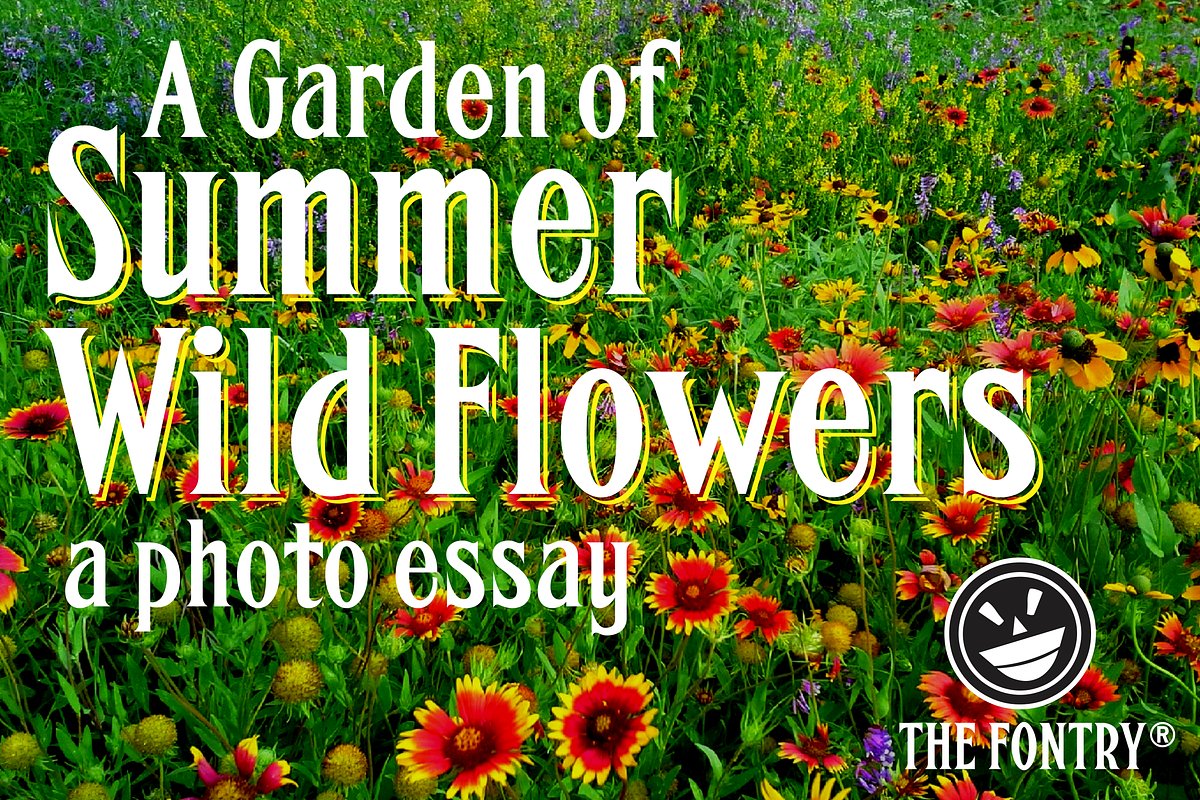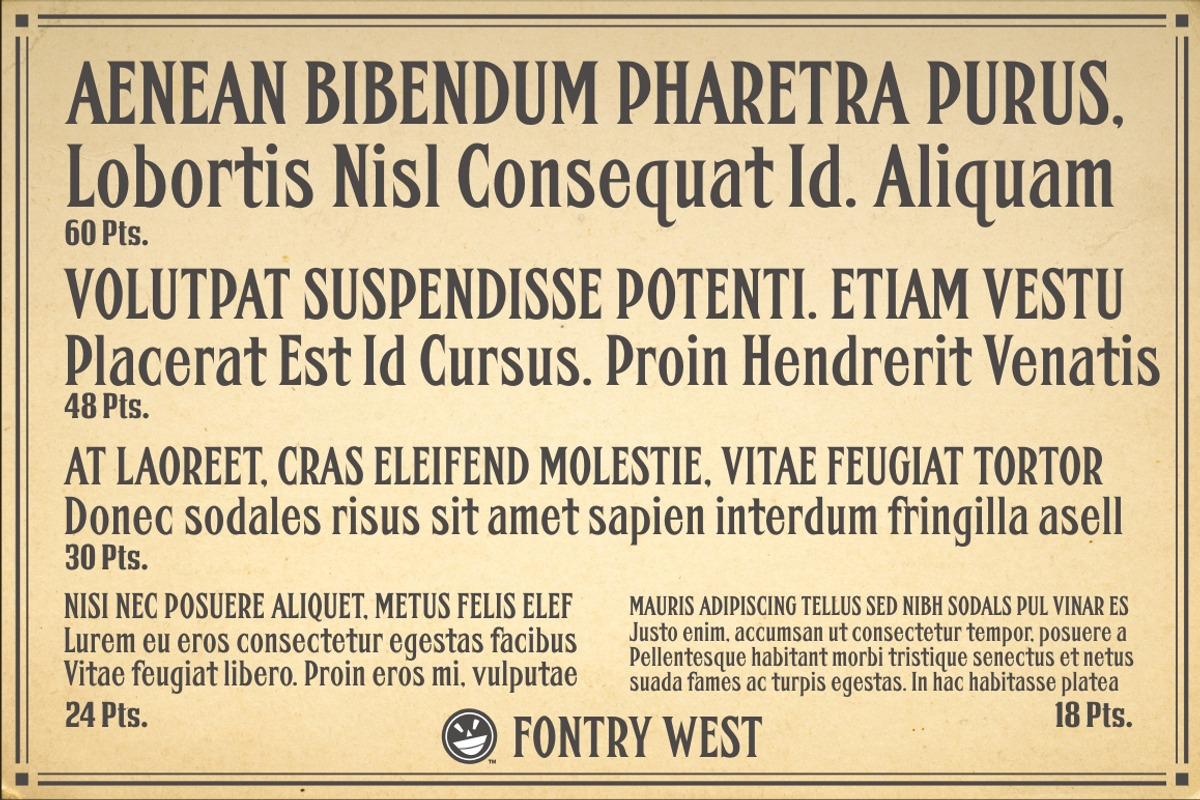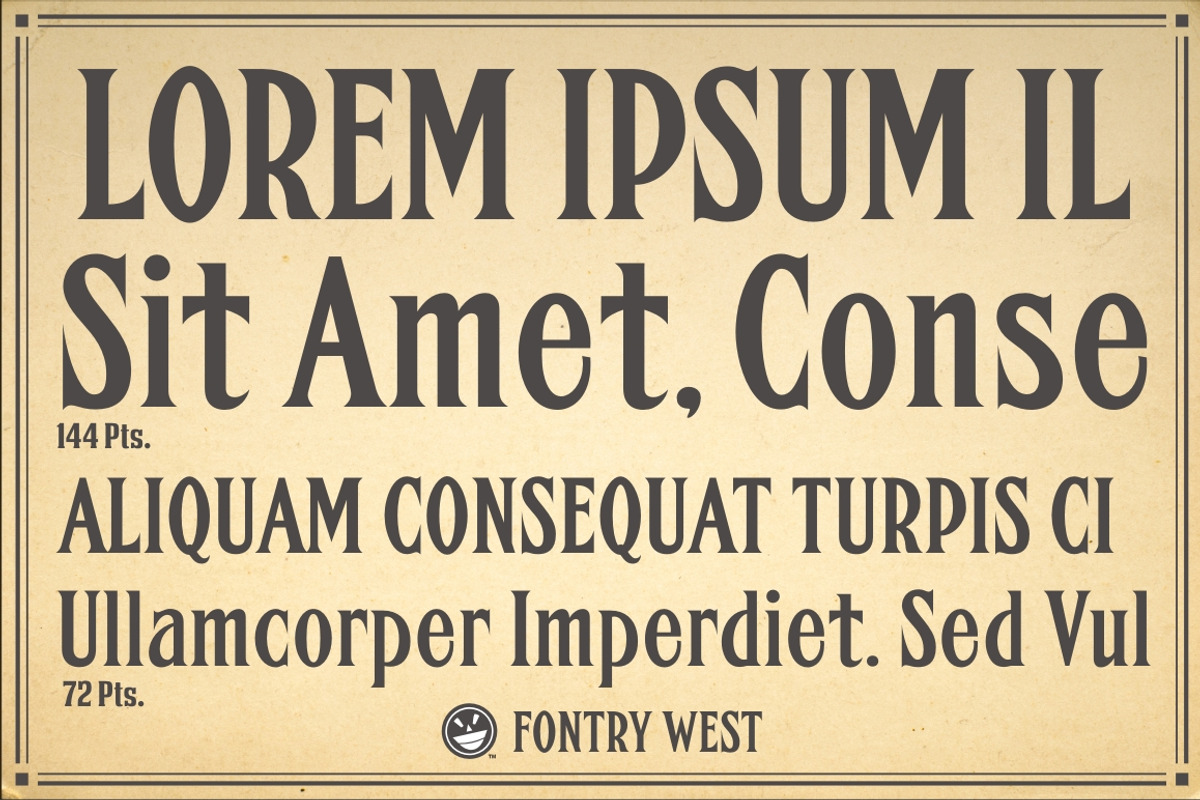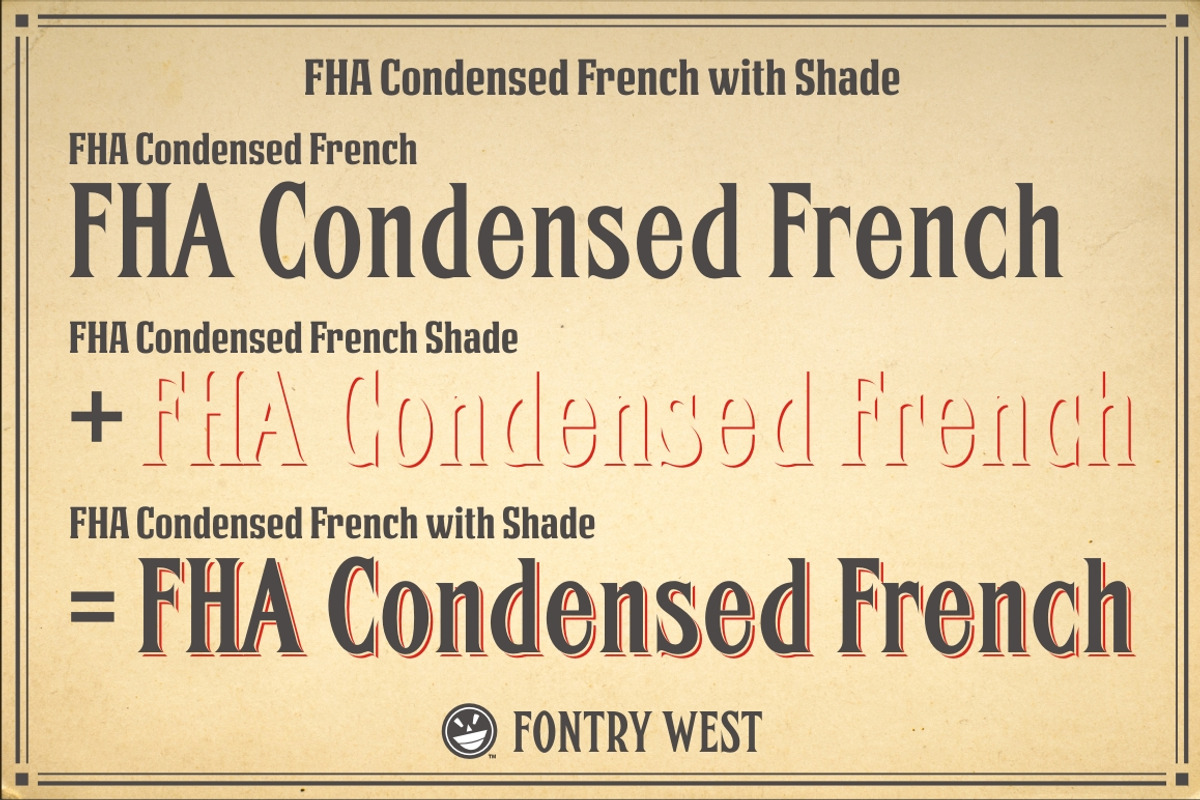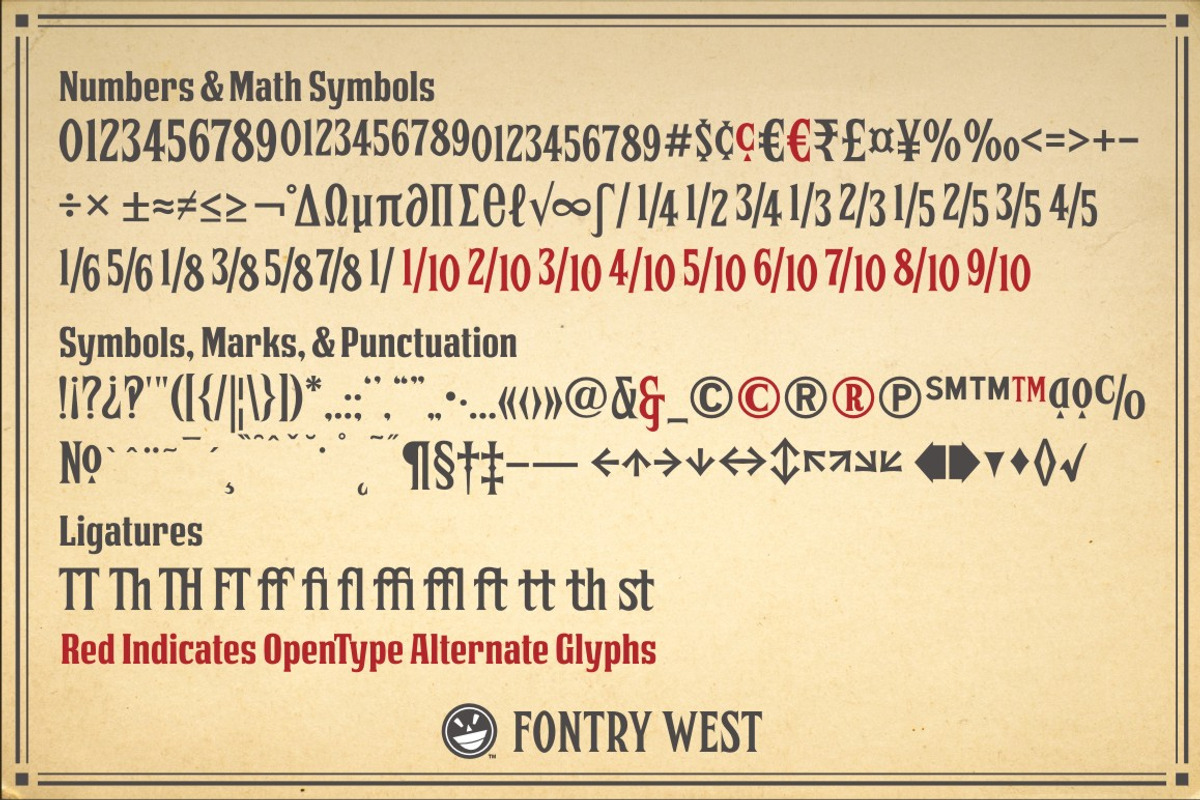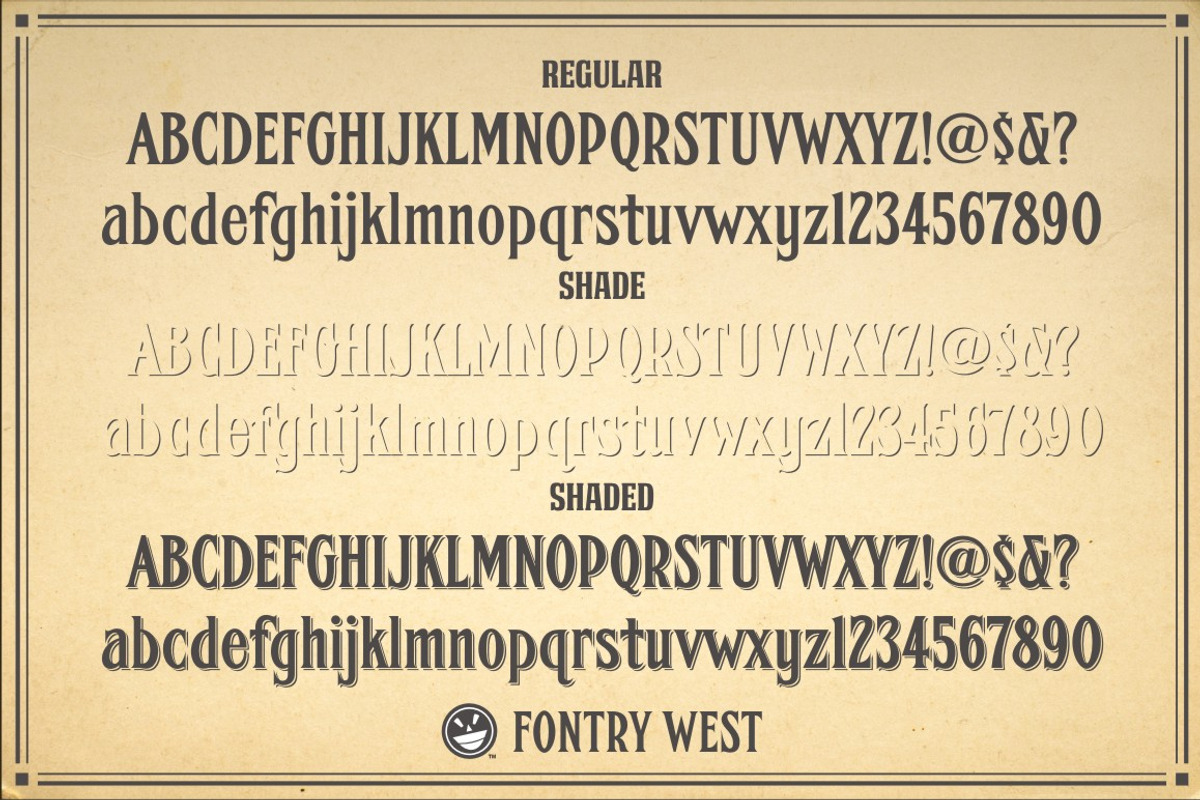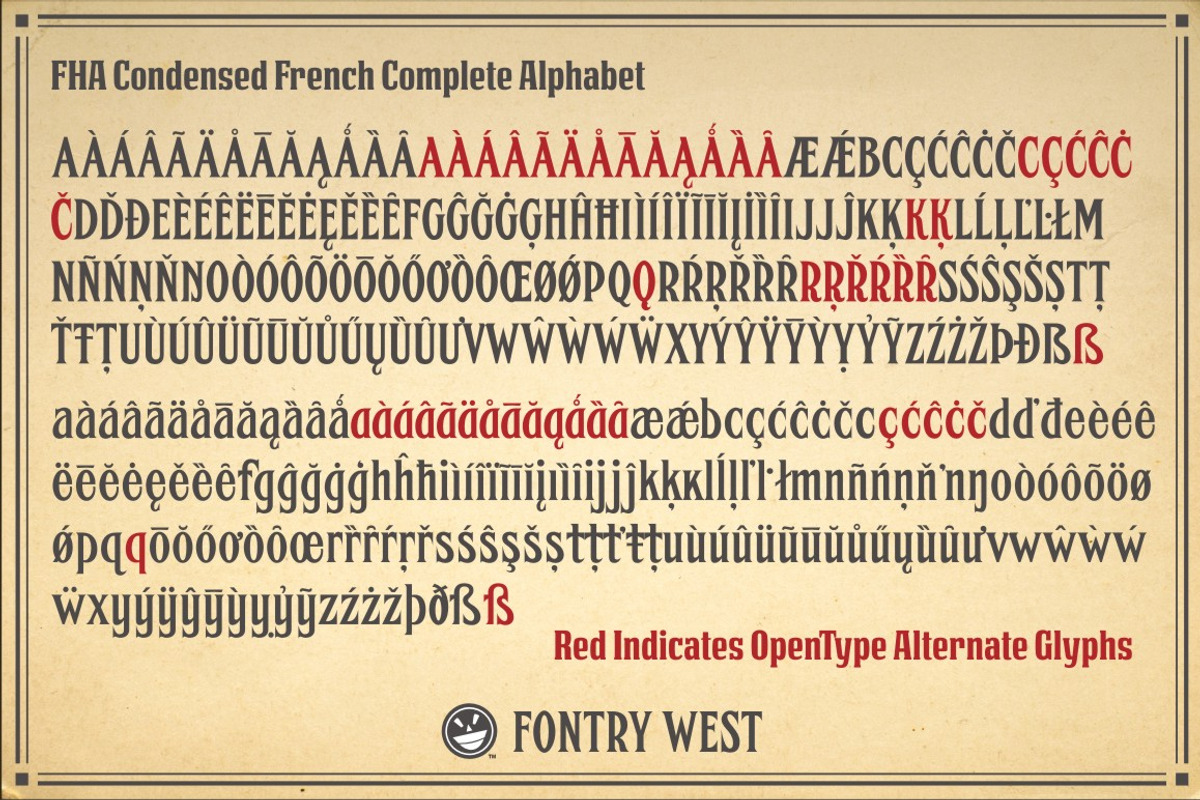
FHA Condensed French: A Vintage Font
One could speculate that FHA Condensed French probably started life as wood type for displays, headlines and posters. The exaggerated sharp serifs and condensed forms were not uncommon for that period. At some point, sign painters picked up Condensed French added their own character. At the end of the nineteenth century, Frank H. Atkinson included Condensed French in his samples of lettering for his book, ”Sign Painting, A Complete Manual.” This book became one of the definitive guides for signwriting and hand lettering. In 1999, Mike Adkins digitized Condensed to add to our Atkinson collection.
For its re-release, Condensed French has been updated with more language support, ligatures, and OpenType alternates. It has true vintage character but still plays well in more modern designs. A font for all seasons, the condensed forms and sharp serifs fit in every layout from Wild West days posters and creepy film credits to Christmas ads and Mother’s Day cards. While I can’t really see FHA Condensed French as the font for phone aps or video game text, it will provide impact to logos, branding, and product labeling.